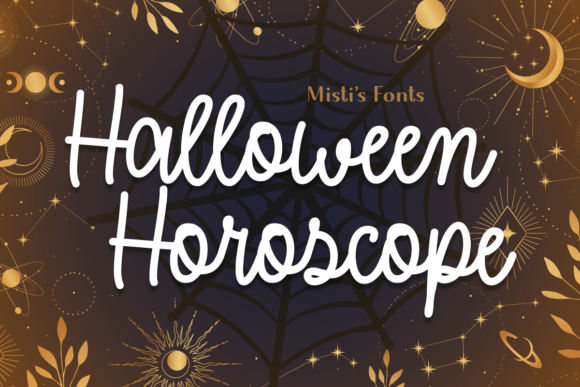
Unleash a Bewitching Charm with Halloween Horoscope Font: The Ultimate Fall Font Duo to Cast a Spell on Your Designs!
Dive into the realm of the mystical and embrace the enchanting aura of the Halloween Horoscope Font, a captivating script font family that will cast a spell on your creative endeavors. Inspired by the eerie allure of the autumn season, this font duo is meticulously crafted to evoke the captivating spirit of the Halloween festivities.
With its enchanting strokes and bewitching curves, Halloween Horoscope Font possesses an undeniable charm that will leave your audience spellbound. Its unique blend of whimsy and elegance makes it the perfect choice for a variety of projects, from logos and invitations to greeting cards and social media posts.
Step into a world of enchantment and let the Halloween Horoscope Font weave its magic into your designs. Whether you're creating eye-catching logos that exude a touch of mystery or crafting captivating invitations that set the tone for a haunting celebration, this font duo will transport you to a realm of creativity like no other.
Feel the crisp autumn breeze as you explore the endless possibilities of the Halloween Horoscope Font. Design product labels that capture the essence of the season, adding a touch of enchantment to your customers' unboxing experience. Create posters that beckon with an eerie elegance, drawing people into your events with a sense of anticipation.
With Halloween Horoscope Font, the possibilities are as boundless as the night sky on All Hallows' Eve. Its versatility extends to sublimation projects, allowing you to imprint your designs onto mugs, t-shirts, and other merchandise, spreading the Halloween spirit wherever you go.
So, embrace the magic of the Halloween Horoscope Font and let your creativity flourish. Whether you're a seasoned designer or just starting your artistic journey, this font duo will ignite your imagination and leave your audience spellbound. Dare to dive into the world of Halloween with this enchanting font by your side!